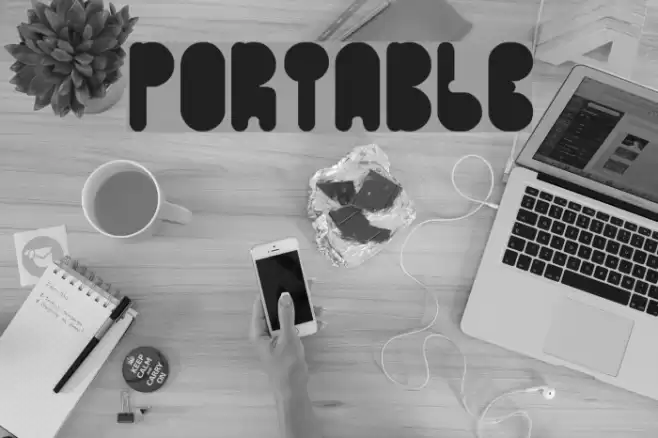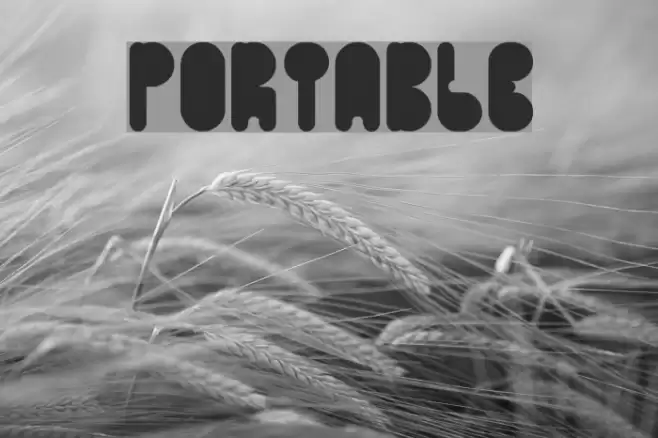
portable Font
portable Description
This font features a bold, rounded style with a playful and modern aesthetic. The characters are heavily weighted, giving them a strong presence on the page. The rounded edges and uniform thickness create a sense of cohesion and smoothness. The font lacks serifs, contributing to its clean and contemporary look. It is highly legible and stands out due to its thick strokes and unique character shapes, which include some playful and unexpected elements. The overall design is eye-catching and suitable for creative projects that require a bold statement.
A bold, rounded font with a playful and modern aesthetic from Uncategorized fonts.